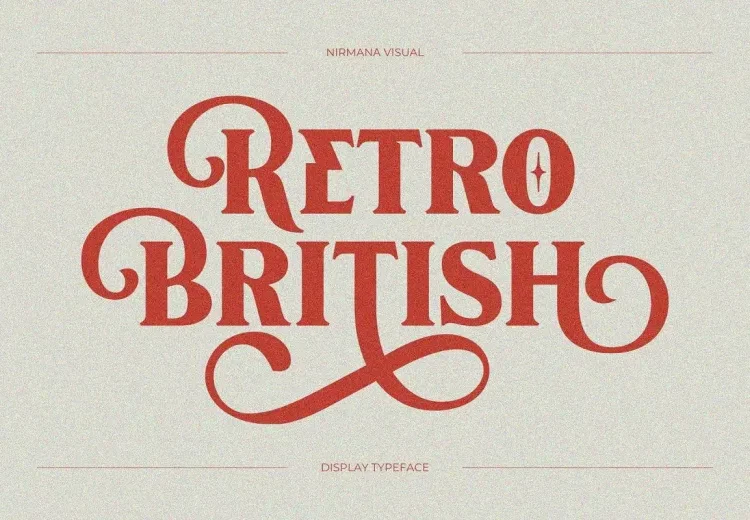
Retro British Font
Retro British is an elegant vintage serif font developed by Nirmana Visual, designed to capture the charm and sophistication of classic typography with a modern twist. Its refined curves and stunning ligatures lend an authentic and appealing aesthetic to any project.
Key Features and Design Attributes:
• Classic Charm: Retro British boasts elegant curves and a vintage serif style that evokes a sense of timeless sophistication. Its classic design elements are perfect for creating an old-world charm in contemporary settings.
• Stunning Ligatures: The font includes beautifully crafted ligatures that enhance its vintage appeal, adding a touch of authenticity and grace to your designs. These ligatures help achieve a seamless and visually pleasing typographic flow.
• Versatile Applications: Retro British is highly adaptable, making it suitable for a wide range of applications. Whether you’re working on personal or professional projects, this font adds a distinguished touch to various design needs.
Ideal Uses:
• Invitations: Use Retro British to design elegant invitations that convey a sense of class and refinement. Its vintage serif style makes it perfect for formal events and special occasions.
• Logos: Create memorable logos with Retro British, which brings a unique blend of classic elegance and modern sophistication. Its versatile design ensures it stands out in branding and identity applications.
• Branding Materials: Incorporate Retro British into branding materials such as magazines, photography cards, and product mockups. Its refined appearance enhances the visual impact of promotional and branding materials.
• Packaging: Retro British is ideal for product packaging, including mugs, posters, and labels. Its elegant style adds a touch of sophistication to product presentations and packaging designs.
• Quotes and Editorials: Enhance the presentation of quotes, labels, and editorial content with Retro British. Its classic serif design provides a stylish and readable typeface for various textual elements.
• Art Deco Projects: The font’s vintage charm makes it a great choice for Art Deco-inspired designs, adding a touch of historical elegance to contemporary art projects.